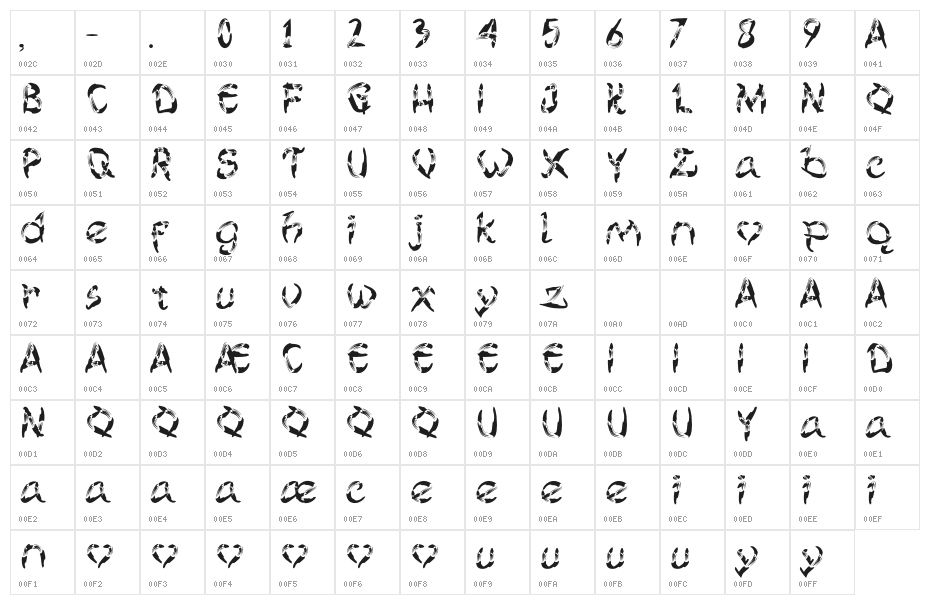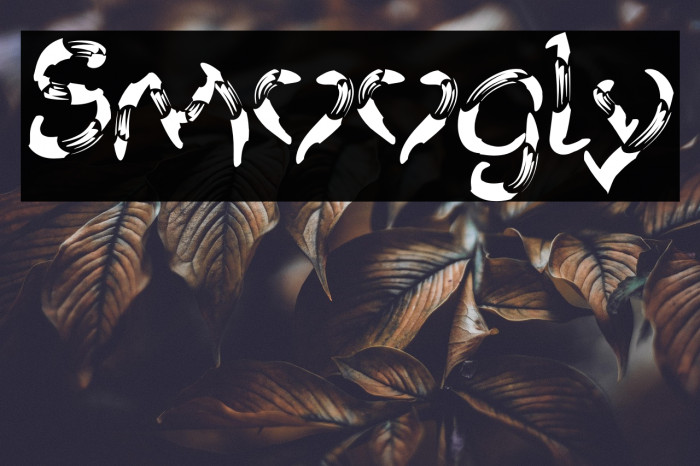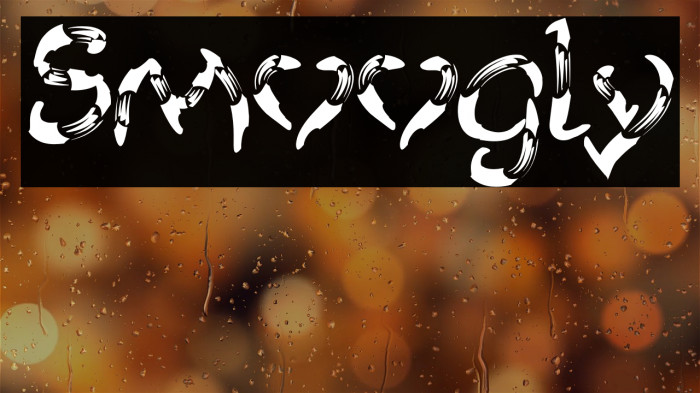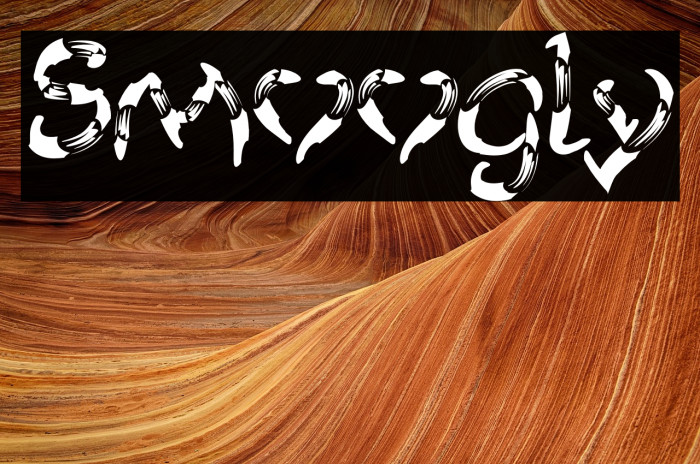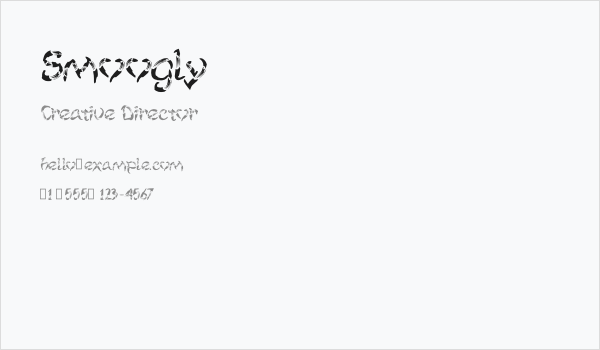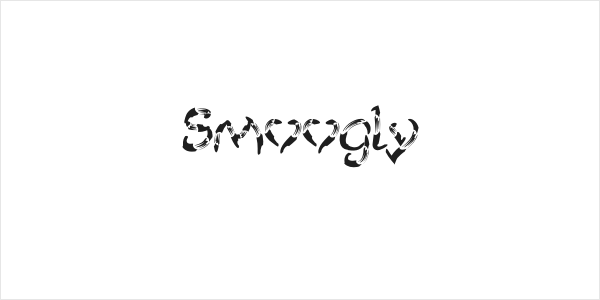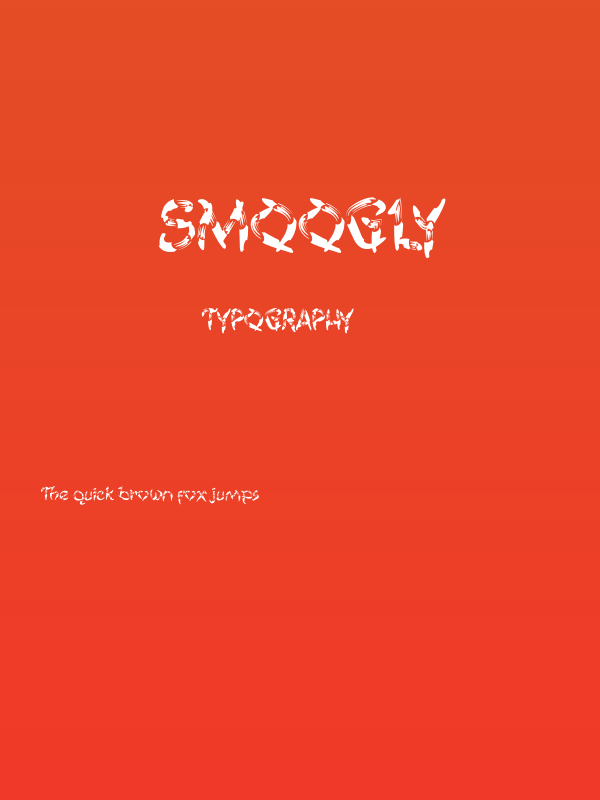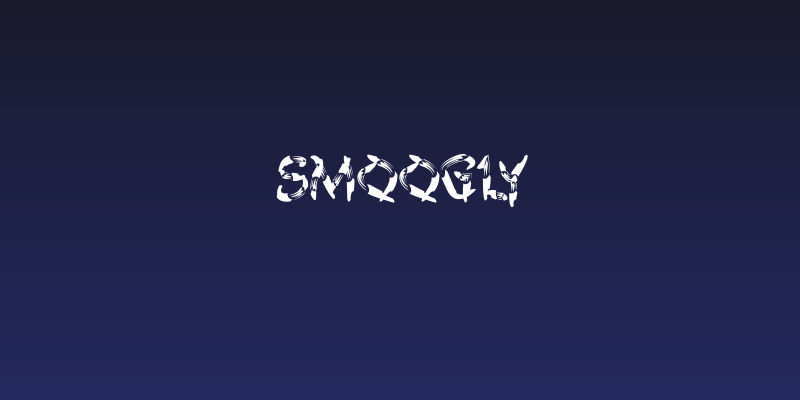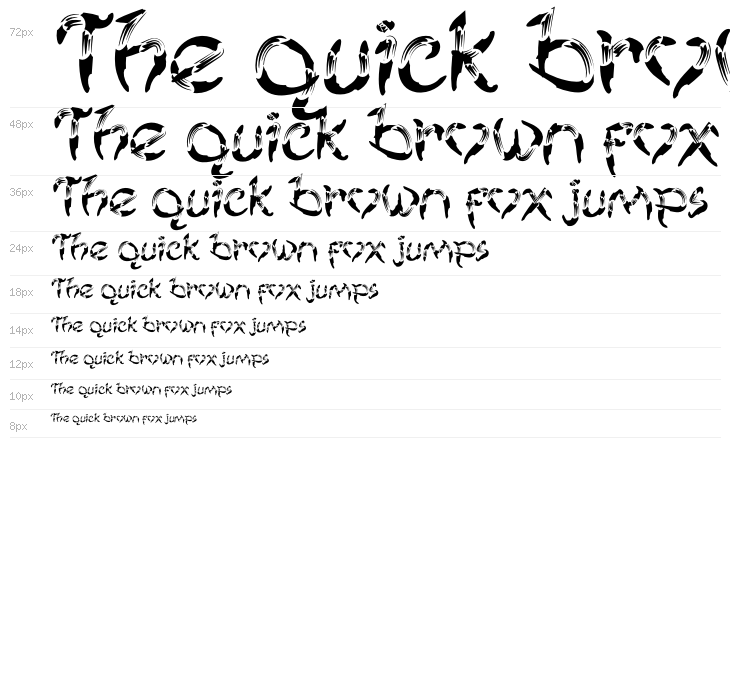
Smoogly Font
Smoogly Description
This font features a bold and dynamic style with swirling, brush-like strokes that create a sense of movement and energy. The characters are highly decorative, with a unique texture that resembles paint strokes or ink splashes. The uppercase and lowercase letters maintain a consistent artistic flair, while the numbers and special characters follow the same expressive design. This font is visually striking and commands attention, making it ideal for creative and artistic projects.
| Proposed Projects | Ideal for artistic posters, creative branding, album covers, and expressive graphic design projects. |